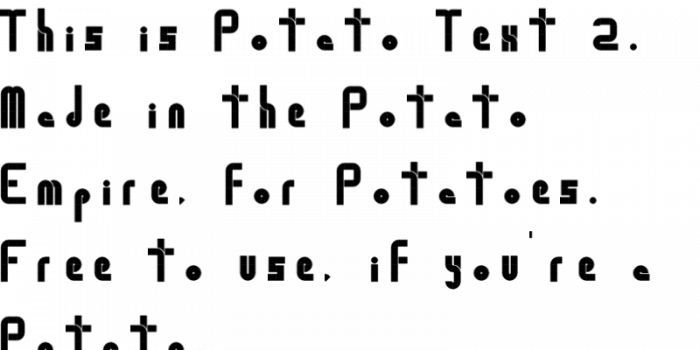
A fun name for a very legible fun font. All the essentials are there so it's useable, great! It looks well planned and confident; those hairlines are a surprise element. I like how the glyphs seem to bounce.
neat